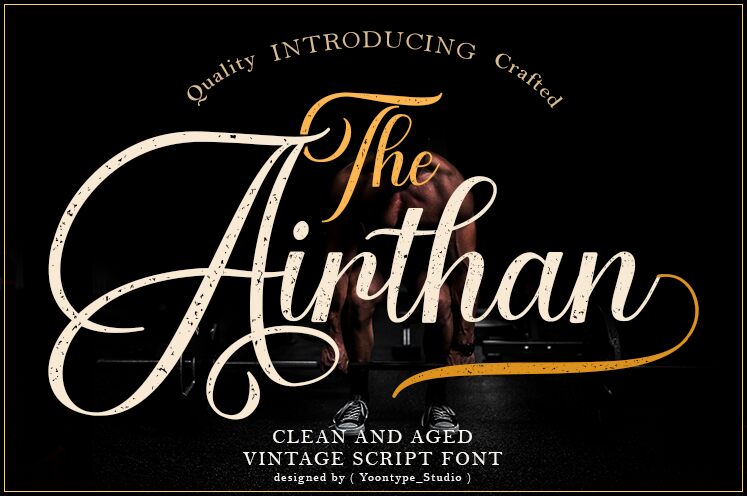
Airthan-Age
Airthan Age font is a must-have calligraphy font designed by Muhammad Yoni of Yontype Studio.
Airthan Vintage Script Font
This vintage font is handwritten under traditional calligraphy inspiration and a beautiful mystical soundtrack.
Airthan comes with a Clean and Aged version, a beautiful, ligature alternative to uppercase and lowercase letters, and is favored by many swash tips. It has Multilingual support
In the preview, I show how this script can be used. It is perfect for logos, wedding invitations, alcohol labels, romantic cards and etc.
Alternative uppercase & lowercase styles
Final Ligature & Slide